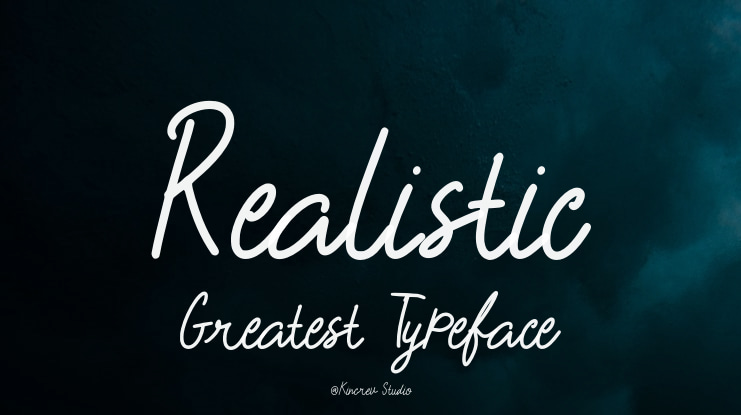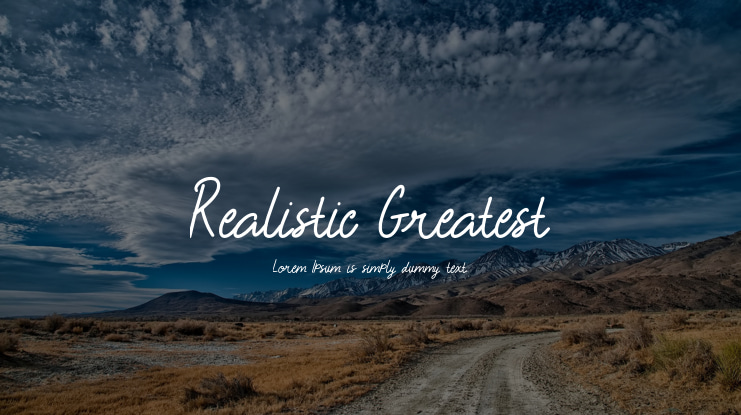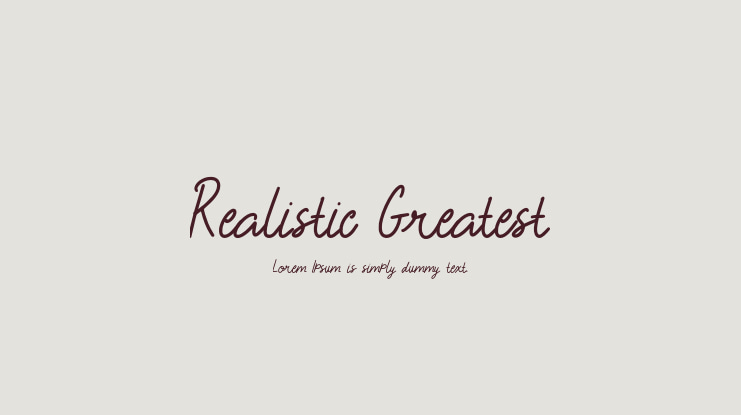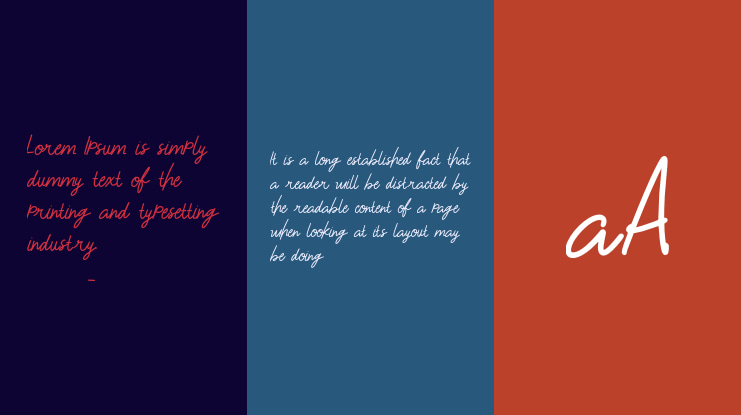
Realistic Greatest Font
Thank you for downloading our beautiful signature font, Realistic Greatest. This font is perfect for a variety of design purposes such as logos, posters, advertising, product labels, t-shirts, YouTube thumbnails, poster quotes, editorial design, book covers, websites, social media posts, packaging designs, and more.
Realistic Greatest font preview